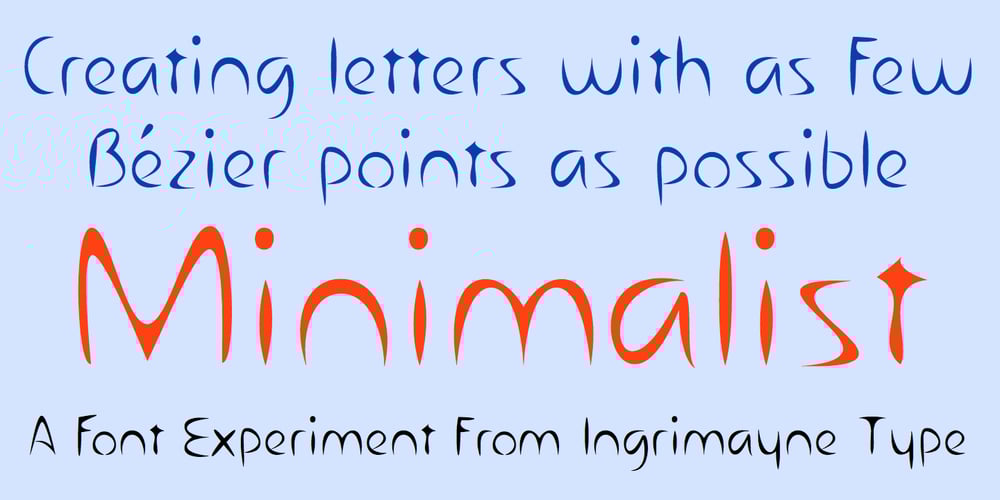
Minimalist Font Family was designed by Robert Schenk and published by Ingrimayne Type. Minimalist contains 1 styles and family package options. PostScript fonts are constructed by connecting dots, dots that have special attributes that control the shape of the connecting lines. In designing Minimalist, I wanted to see how few dots could be used to construct each letter. This is the source of the name–it is (or was) a minimum-point alphabet. I did not expect much from it, and was surprised that it turned out as well as it did. Since I originally drew it, I have added some points to some of the letters to get them to generate proper bitmaps, so it no longer has minimum points.